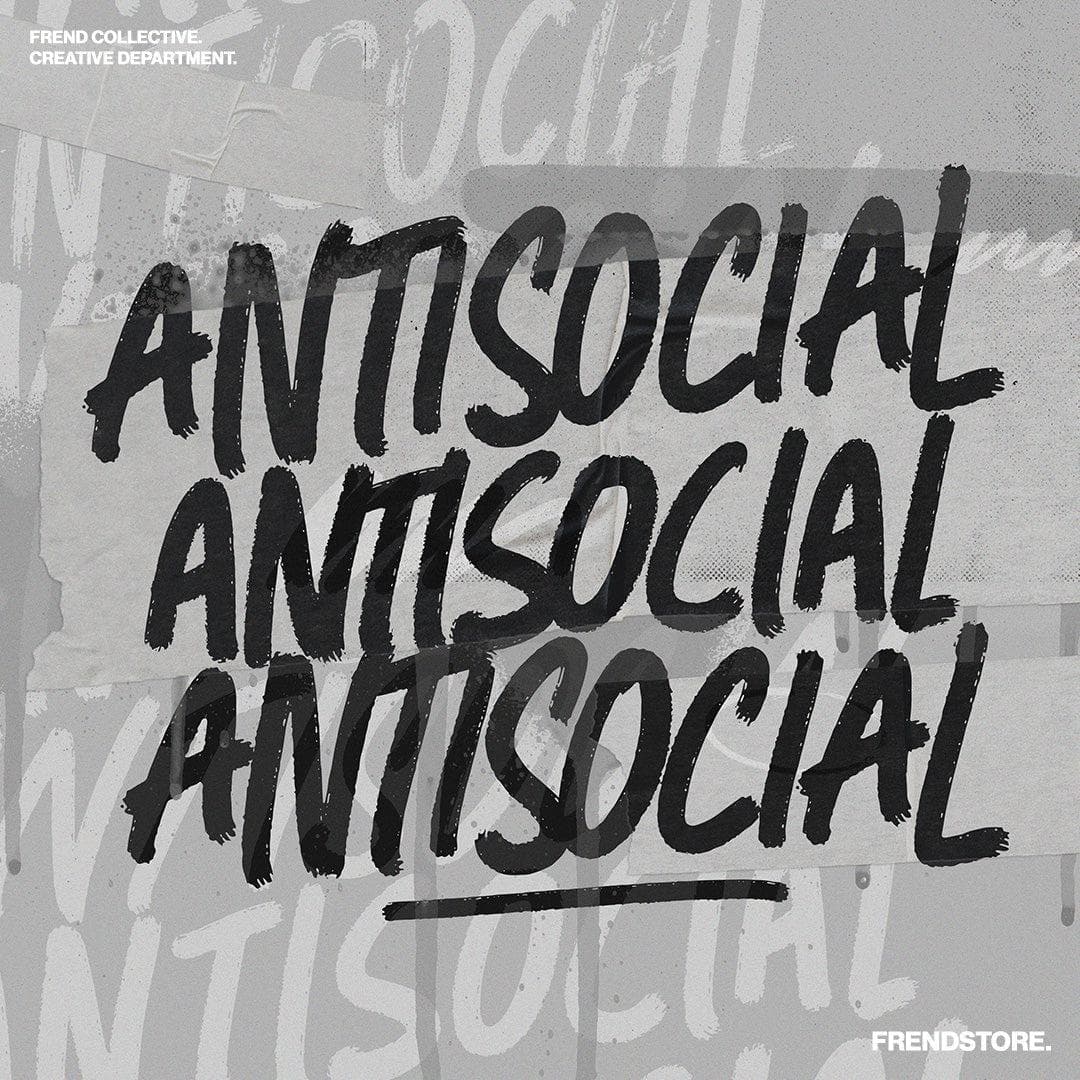
<p>Antisocial font collection includes 6x handwritten fonts + Extras in different styles and variations, this font is perfect for any project. the Antisocial font family emulates a quick handwritten note or script that gives you the impression it has been hand written.</p>